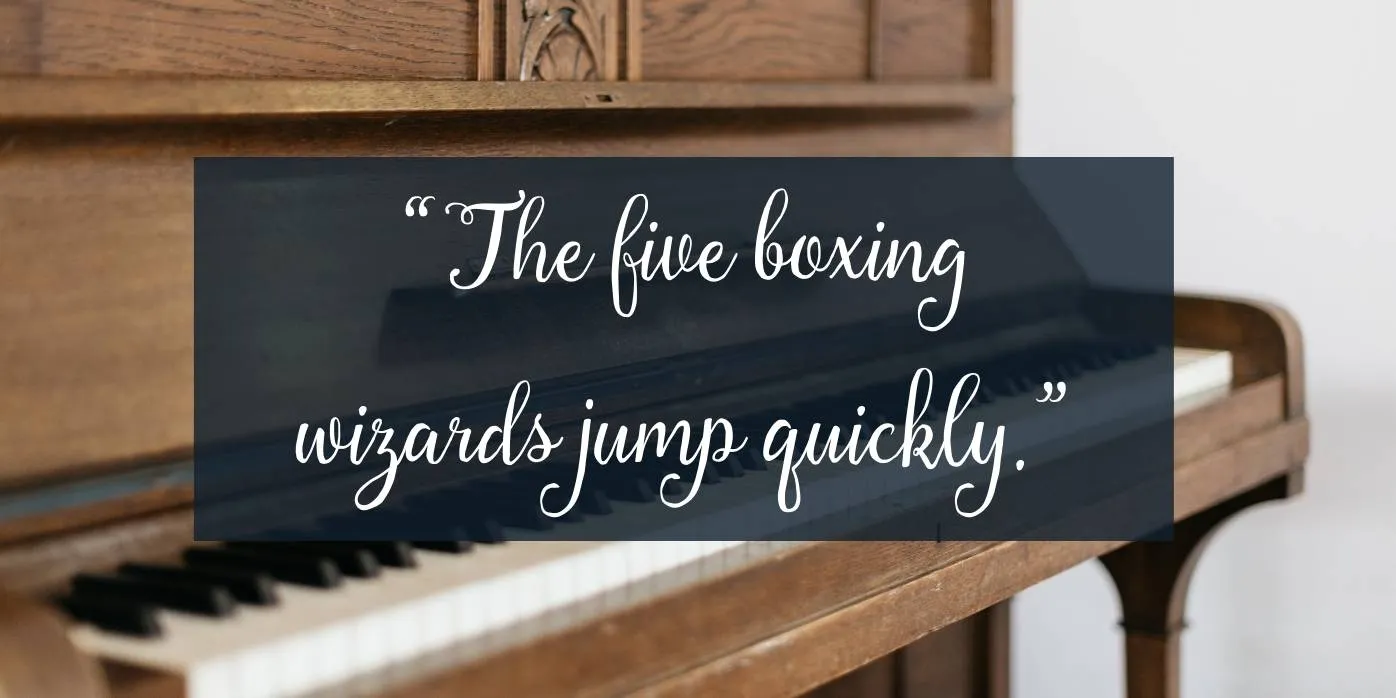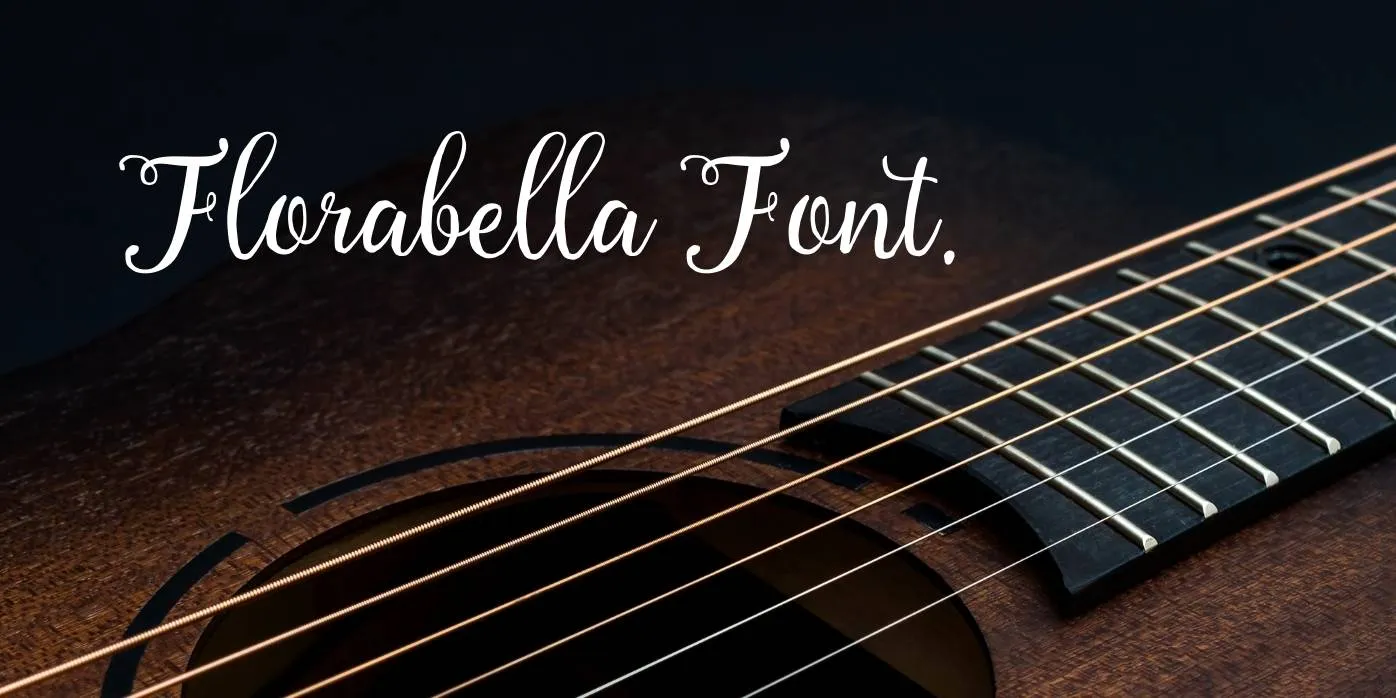
Florabella Font
Florabella Font is a florid, swashy serif typeface designed by Kevin Andrew Murphy for the Pathfinder Roleplaying Game. Florabella was originally created for use in the Reign of Winter adventure path but has since gone on to become one of the most popular fonts amongst gamers and readers alike. The florabella serifs font has a cursive style, Its letters are perfect for creating custom handouts or for replacing the default text on various game pieces. This astonishing font is available in many styles and characters.
Florabella has a wide range of florabella swash font and florabella decorative font which is perfect for sign,  handwriting, and script. Bralyn Script Font is most similar to this cozy typeface. Its copy and paste function is very best and most useful. Florabella can be used florabella for a wide range of florabellx applications.